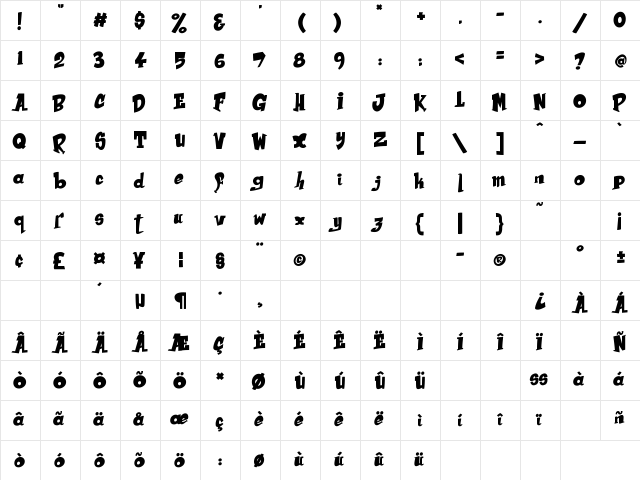
Return of the Flash Regular
| Designer | IMAGEX |
Design Context for Return of the Flash Typeface
Return of the Flash is a composed and adaptable typeface that performs quietly and consistently across a wide range of design contexts.